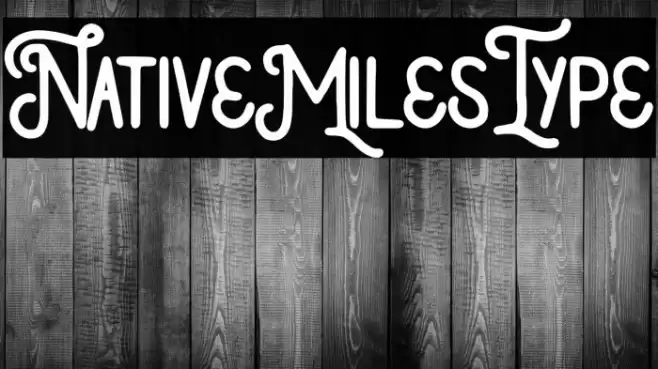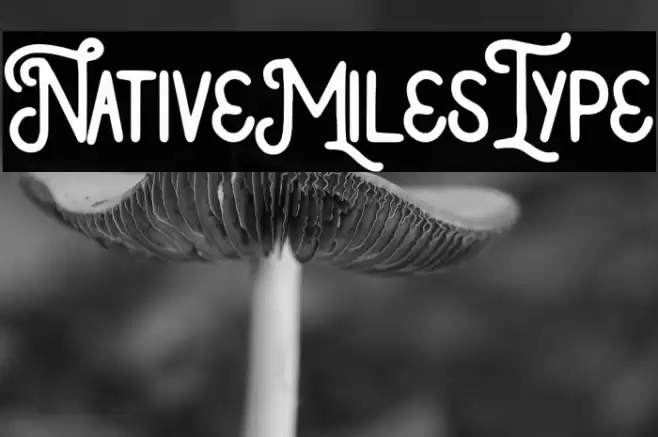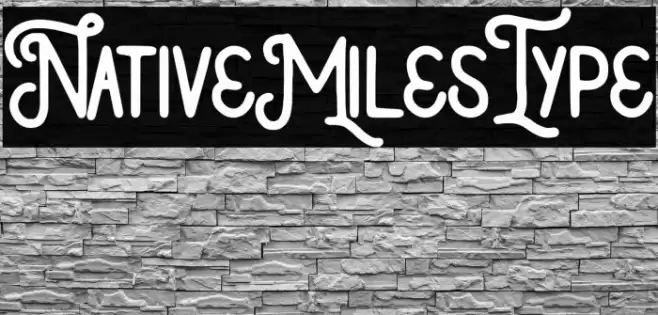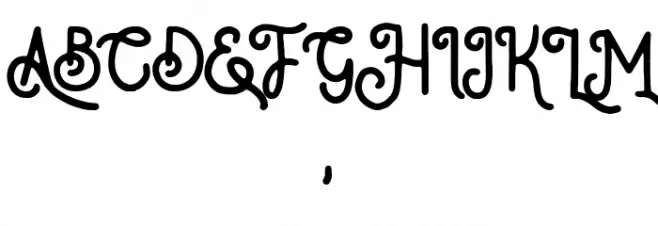
NativeMilesType Font
NativeMilesType Description
This font features a playful and decorative style with swirling, ornate elements that give it a whimsical and artistic appearance. The uppercase letters are characterized by their bold, curvy lines and intricate loops, creating a sense of movement and flair. The lowercase letters maintain a similar decorative quality, ensuring consistency throughout the typeface. The overall design is eye-catching and suitable for creative projects that require a touch of elegance and uniqueness. The font's distinctive style makes it ideal for use in branding, invitations, and other design projects where a bold statement is desired.
A whimsical and decorative font with bold, swirling elements from Regular fonts.
- Proposed Projects: Ideal for branding, invitations, artistic posters, and creative design projects.
- Use Case: Logos, Headlines, Artistic projects